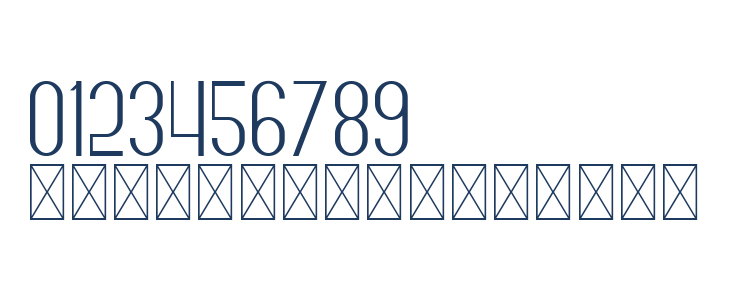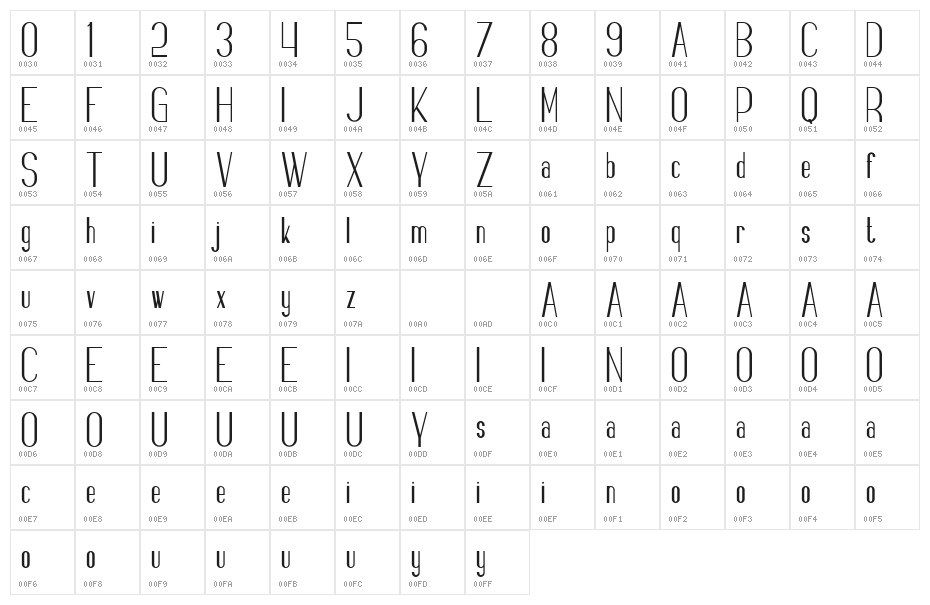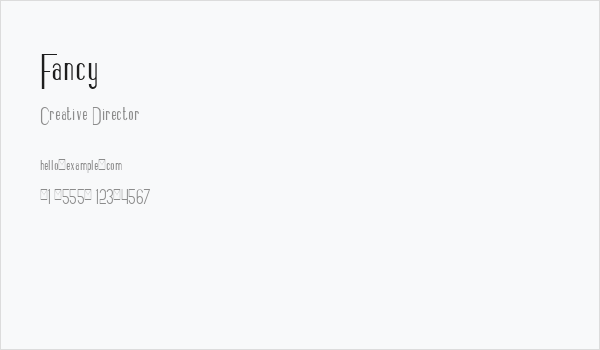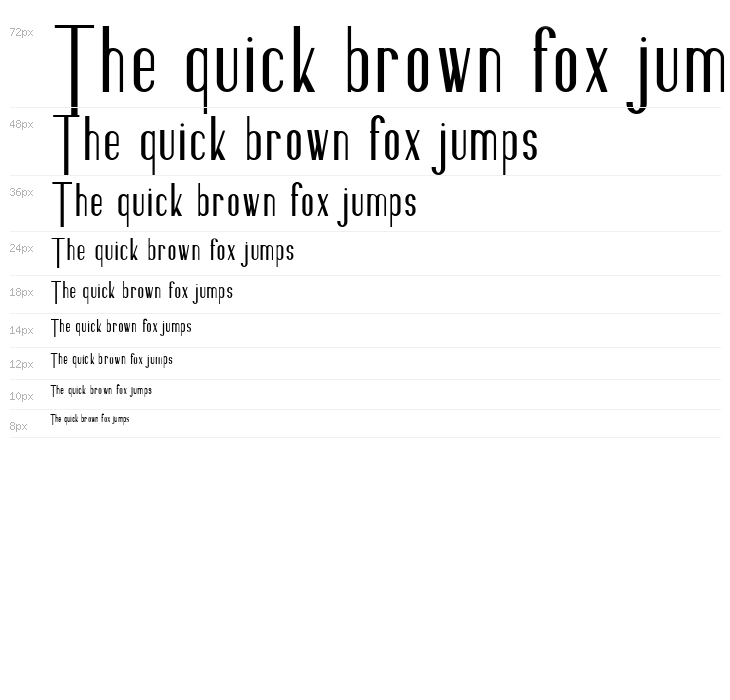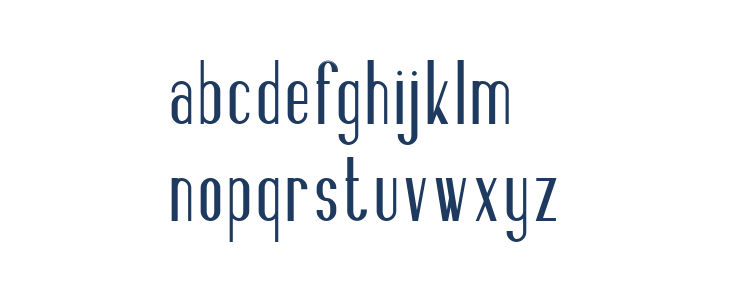
Fancy Font
Fancy Description
This font features a modern and sleek design with tall, narrow characters that convey a sense of elegance and sophistication. The uppercase letters are particularly elongated, giving a distinct vertical emphasis, while the lowercase letters maintain a consistent height that complements the overall aesthetic. The numerals are similarly styled, with a uniform width that ensures readability. The special characters are designed to blend seamlessly with the alphanumeric set, maintaining the font's cohesive appearance. The clean lines and minimalistic approach make it versatile for various design applications.
| Proposed Projects | Ideal for fashion magazines, luxury branding, modern websites, and editorial design. |